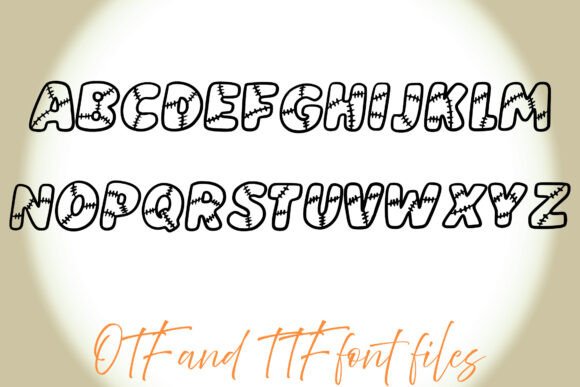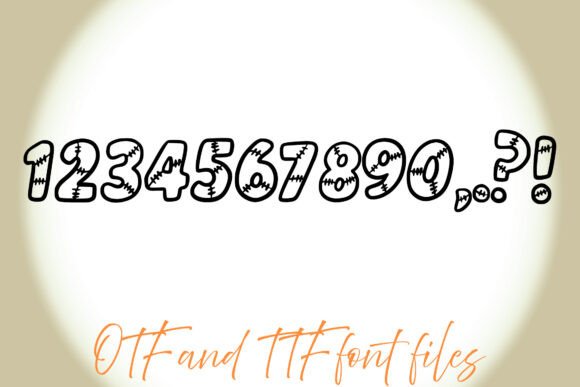
Frankie Stitch Font: The Perfect Playful Display Font for Crafty Projects
Are you a designer or crafter looking for a unique and playful font to add a personal touch to your projects? Look no further than the Frankie Stitch Font! Inspired by patchwork and handmade crafts, this stitched-letter display font is sure to bring a quirky, cozy charm to your designs.
What is Frankie Stitch Font?
Frankie Stitch is a one-of-a-kind display font that features soft, stitched letters with visible “stitch” lines, giving it a delightful handmade feel. The font’s soft pastel color palette adds to its whimsical charm, making it perfect for a variety of crafty projects. Whether you’re working on Halloween crafts, children’s projects, handmade goods branding, or DIY-themed artwork, Frankie Stitch Font is the ideal choice.
Inspiration Behind Frankie Stitch Font
The Frankie Stitch Font draws inspiration from traditional patchwork and handmade crafts. The font’s creator aimed to capture the essence of sewing and stitching, bringing a tactile, handcrafted feel to digital designs. The result is a font that looks like it’s been sewn together with love and care, making it perfect for projects that require a personal touch.
Key Features of Frankie Stitch Font
- Stitched-letter design: Each letter features visible “stitch” lines, giving it a handmade feel.
- Soft pastel color palette: The font’s color scheme is soft and soothing, adding to its quirky charm.
- Playful and whimsical: Frankie Stitch Font is perfect for projects that require a touch of playfulness and personality.
- Versatile: Suitable for a wide range of projects, from Halloween crafts to children’s projects, handmade goods branding, and DIY-themed artwork.
Use Cases for Frankie Stitch Font
Frankie Stitch Font is an incredibly versatile font that can be used in various projects, including:
- Halloween crafts: Add a spooky touch to your Halloween designs with Frankie Stitch Font’s playful, stitched letters.
- Children’s projects: The font’s whimsical charm makes it perfect for children’s books, educational materials, and activity sheets.
- Handmade goods branding: Use Frankie Stitch Font to add a personal touch to your handmade goods, such as jewelry, crafts, or food products.
- DIY-themed artwork: The font’s handmade feel makes it ideal for DIY-themed artwork, such as tutorials, instructions, or inspirational quotes.
Tips for Using Frankie Stitch Font
To get the most out of Frankie Stitch Font, here are some tips to keep in mind:
- Experiment with colors: While the font’s soft pastel color palette is charming, don’t be afraid to try out different colors to match your project’s theme.
- Mix and match with other fonts: Combine Frankie Stitch Font with other fonts to create a unique and visually appealing design.
- Use it sparingly: Due to its playful nature, Frankie Stitch Font works best when used sparingly. Use it for headings or titles to add a touch of personality to your design.
Frankie Stitch Font is a one-of-a-kind display font that’s perfect for designers and crafters looking to add a personal touch to their projects. Its playful, stitched-letter design and soft pastel color palette make it ideal for a variety of crafty projects, from Halloween crafts to handmade goods branding. With its versatility and whimsical charm, Frankie Stitch Font is sure to become a favorite in your font collection.